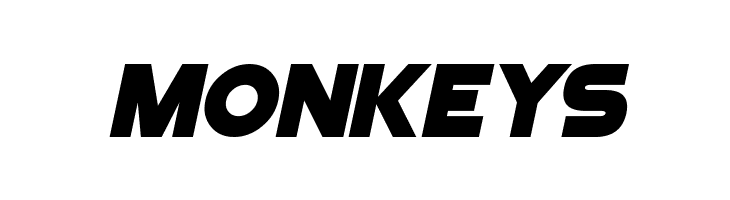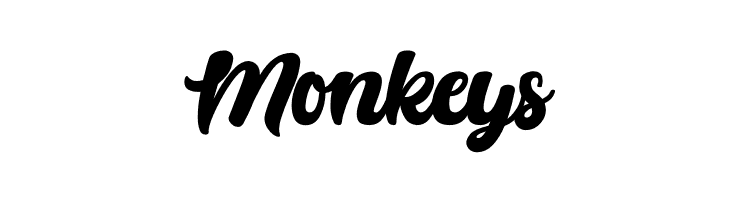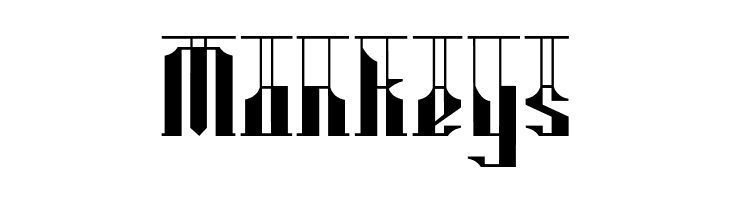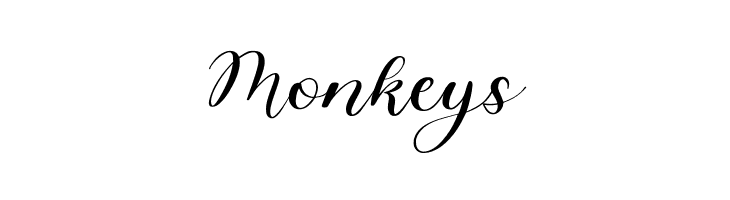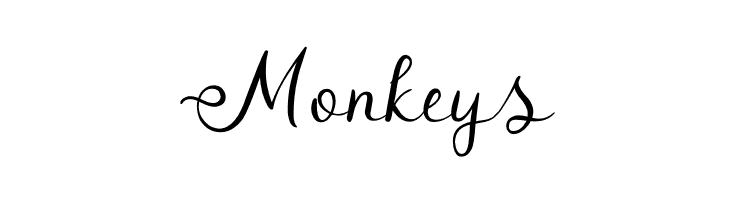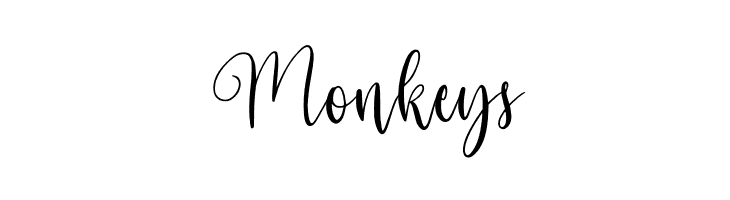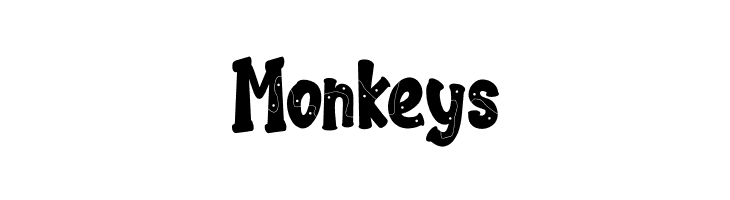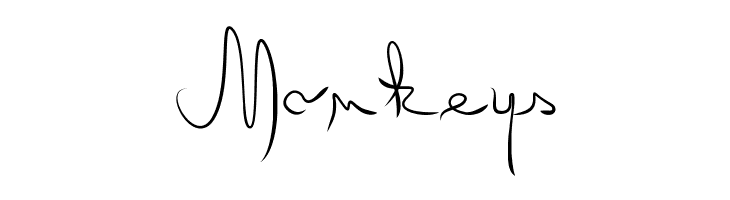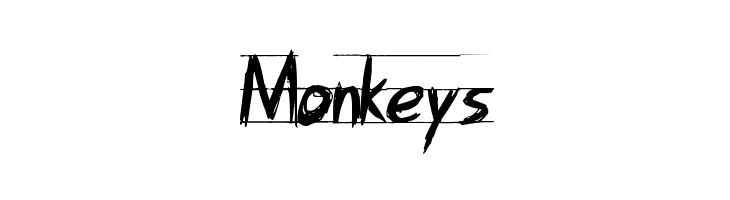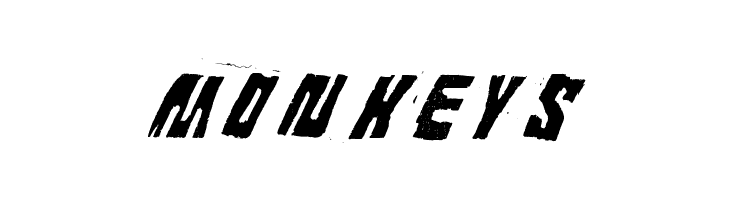
A modern, narrow, and slightly italic font with a retro touch.
A bold, decorative font with a 3D shadow effect, perfect for eye-catching designs.
A bold, three-dimensional font with a modern geometric style.
A dynamic and expressive handwritten font with fluid, cursive letterforms.
A bold, flowing script font with a handwritten, interconnected style.
A flowing, cursive font with interconnected characters and elegant style.
A bold, playful font with rounded edges and a modern, energetic style.
A bold, decorative font with playful, exaggerated curves and loops.
A modern, condensed sans-serif font with tall, narrow characters and uniform stroke width.
A flowing, cursive script font with elegant, interconnected letters.
A bold, modern script font with interconnected characters and a playful yet elegant style.
An elegant script font with flowing, interconnected letters and high-contrast strokes.
A graceful script font with fluid, cursive strokes and elegant curves.
A graceful script font with flowing, connected strokes and elegant flourishes.
A playful and elegant script font with flowing, connected letterforms.
A playful, handwritten font with a quirky and informal style.
A graceful script font with fluid, interconnected strokes and a natural handwriting style.
A bold, expressive handwritten font with flowing cursive letterforms.
A playful, handwritten font with tall, narrow, and slightly slanted characters.
A playful, handwritten font with elongated, narrow characters and a slight slant.
A dynamic and elegant script font with fluid, handwritten letterforms.
A bold, handwritten-style font with brush-like strokes and playful energy.
A lively and expressive script font with dynamic curves and fluid strokes.
A bold, hand-drawn font with an expressive, dynamic style.
A bold, expressive handwritten font with dynamic, irregular strokes.
A bold, hand-drawn font with rugged, expressive strokes.
A bold, hand-drawn font with an expressive and artistic style.
A fluid and elegant script font with a modern cursive style.
A lively, cursive handwritten font with expressive, flowing letterforms.
An elegant and artistic font with tall, slender letterforms and intricate detailing.
A dynamic, expressive handwritten font with fluid, cursive strokes.